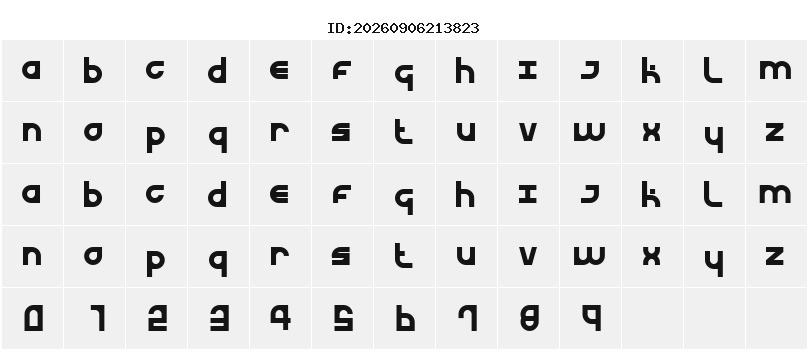
• Font Name: Urban Curve
• Full Font Name: Urban Curve
• Designer: Simon Mudoch
• Manufacturer: PYRS Fontlab Ltd. / Made with FontLab
• Description: Urban Curve is a font by PYRS Fontlab Ltd. / Made with FontLab, designed by Simon Mudoch in 2012.
Urban Curve.ttf is a modern, elegant sans-serif font designed for ultimate readability and visual harmony. Perfect for branding, headlines, web design, and print materials.